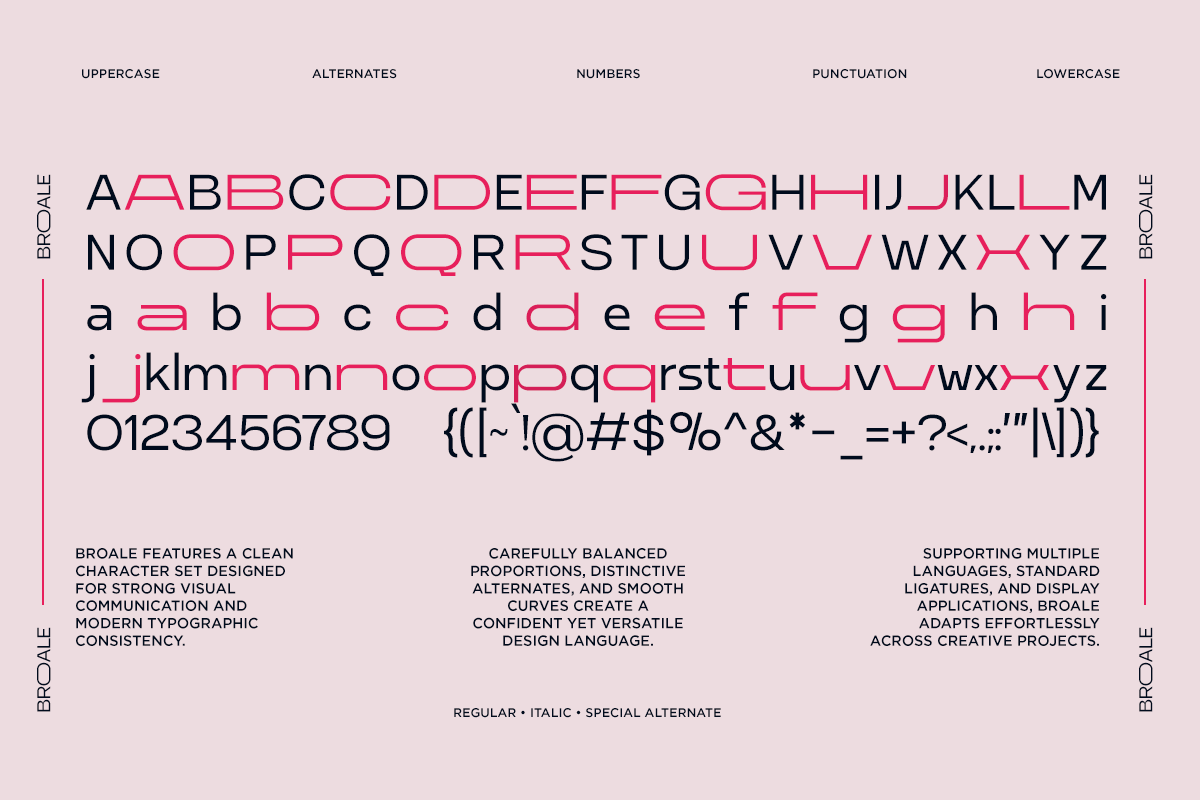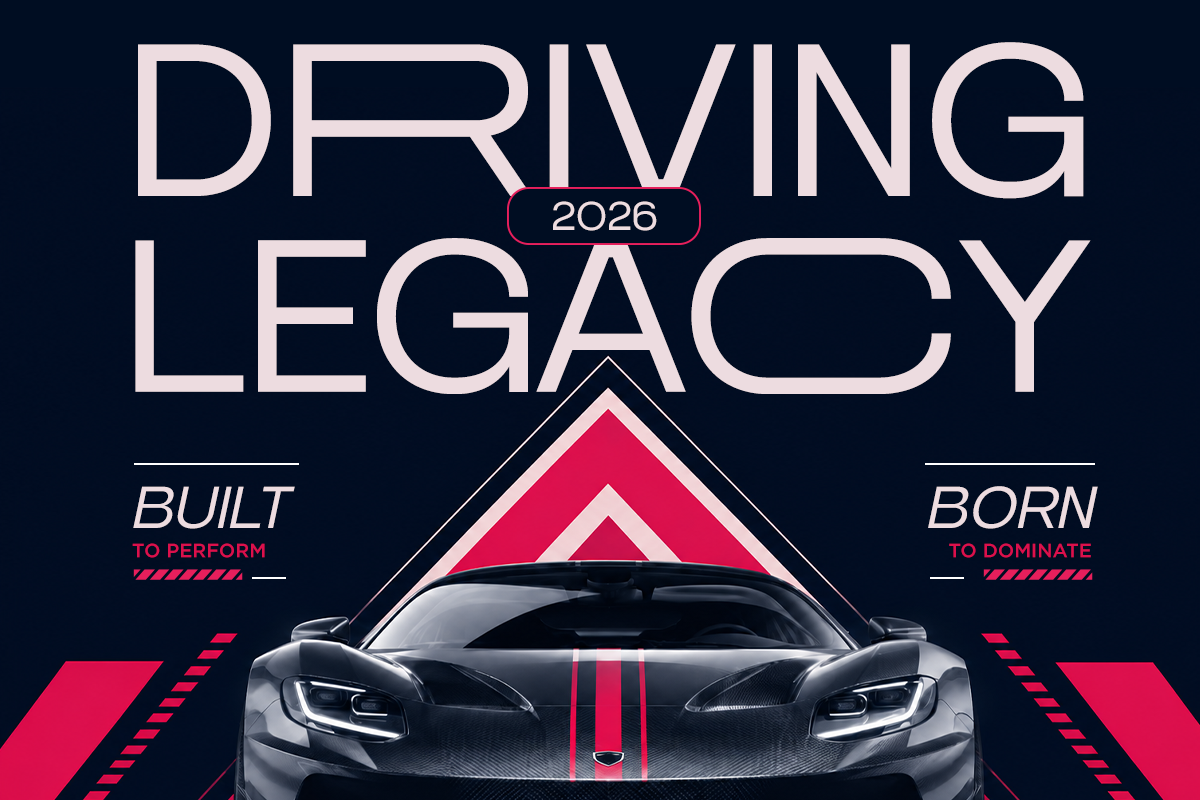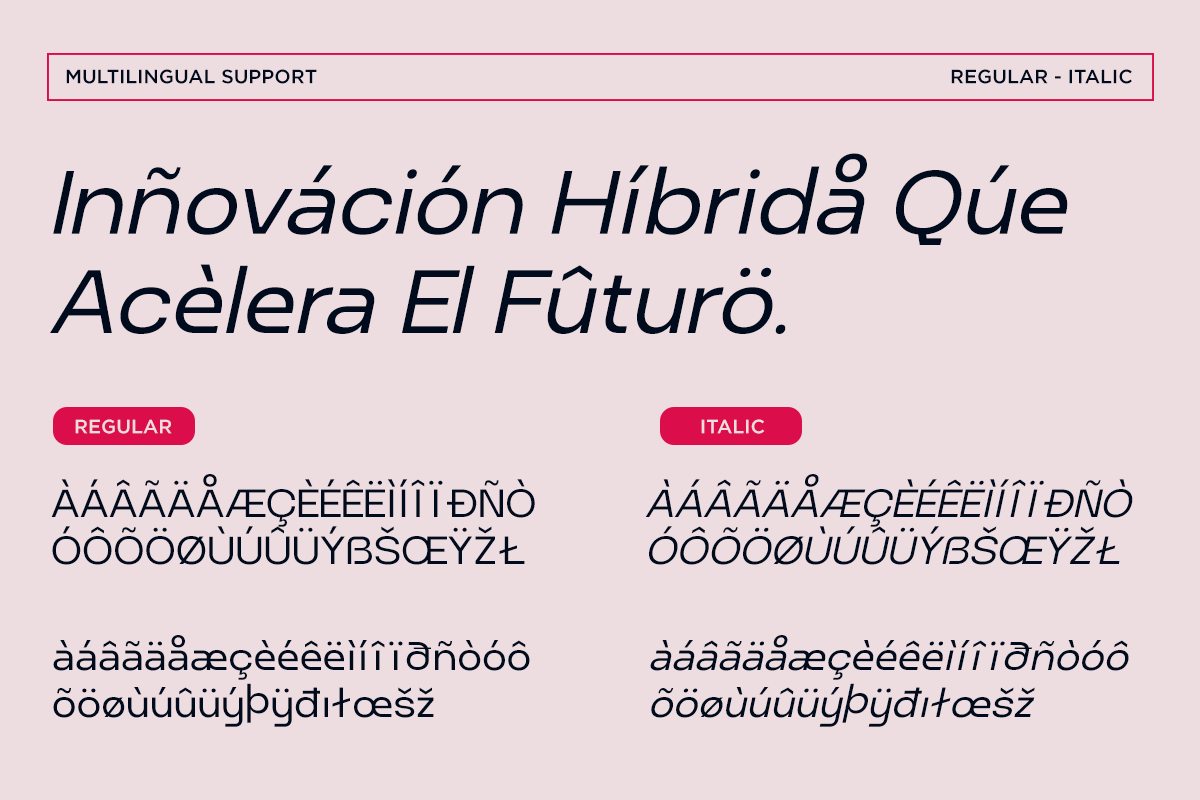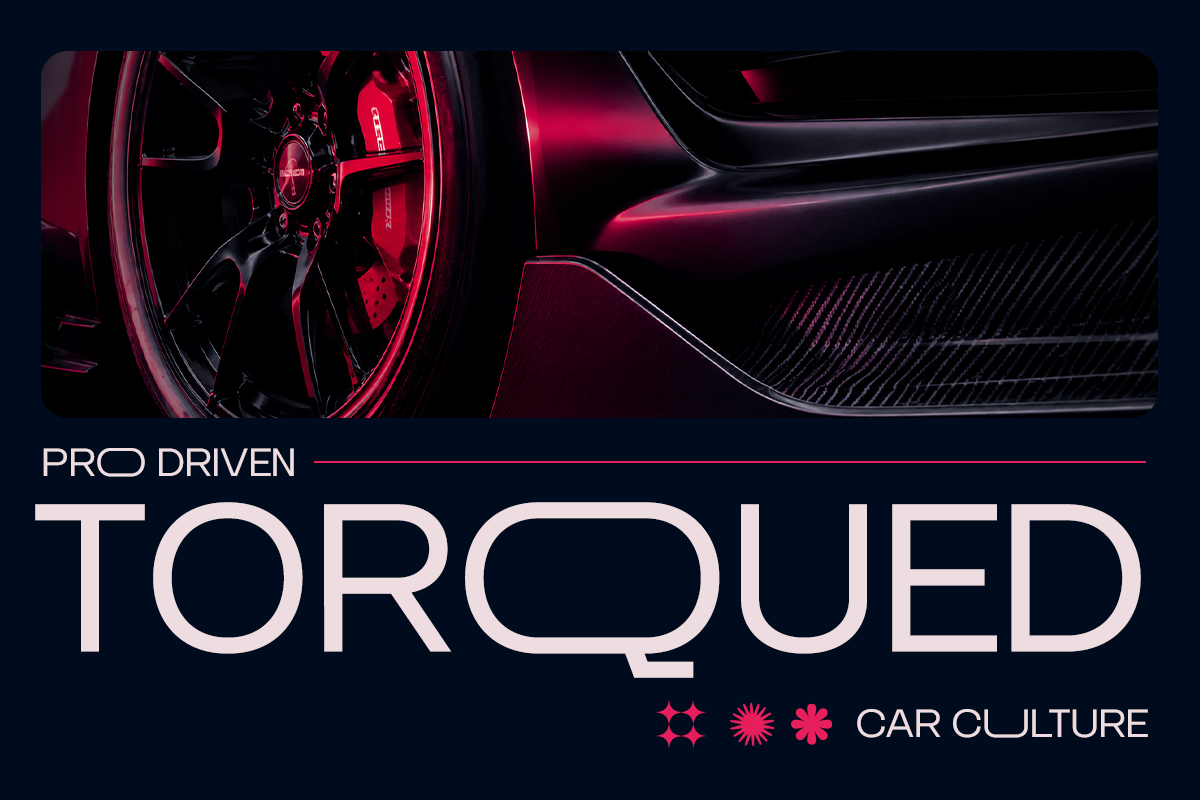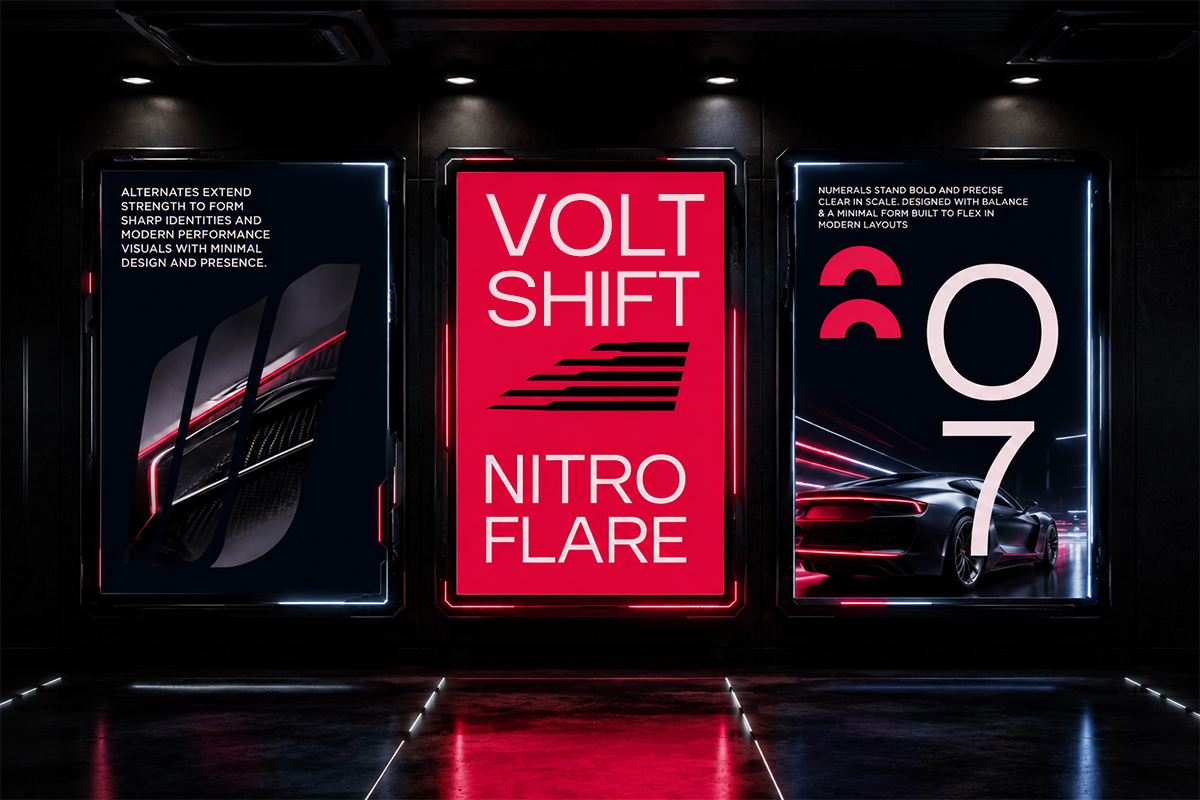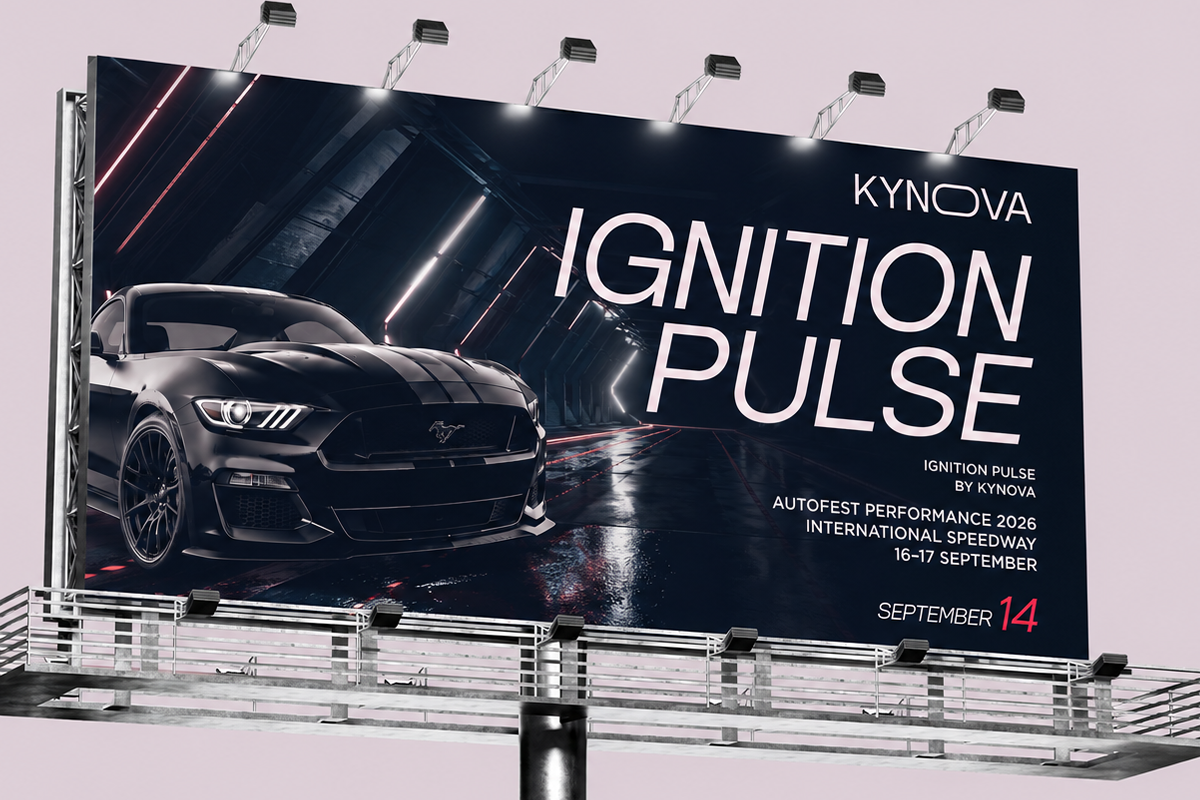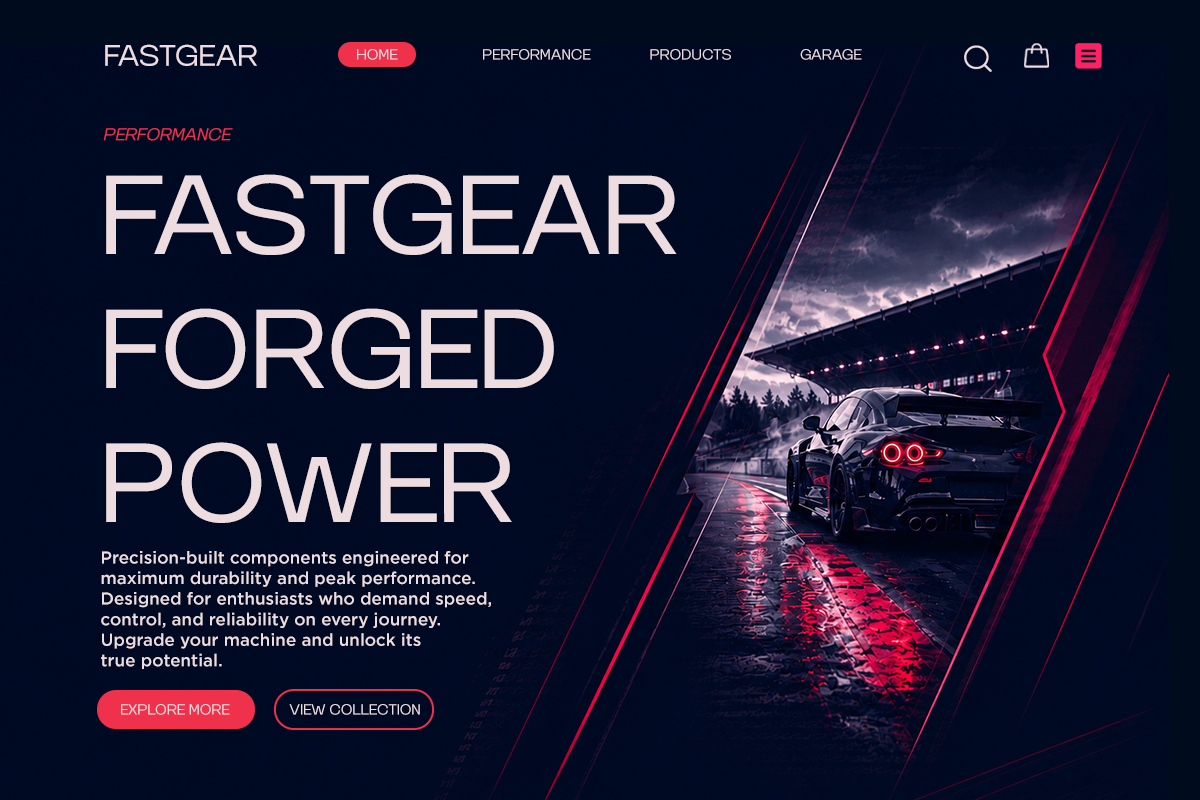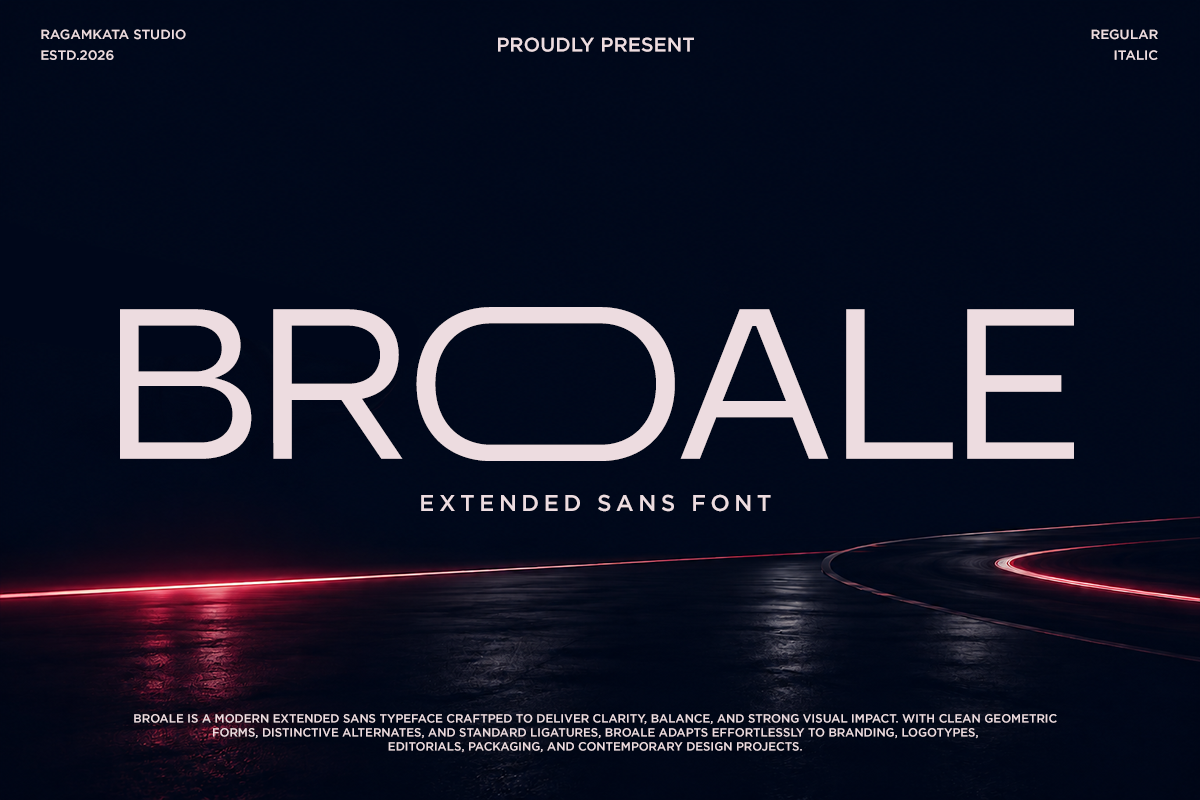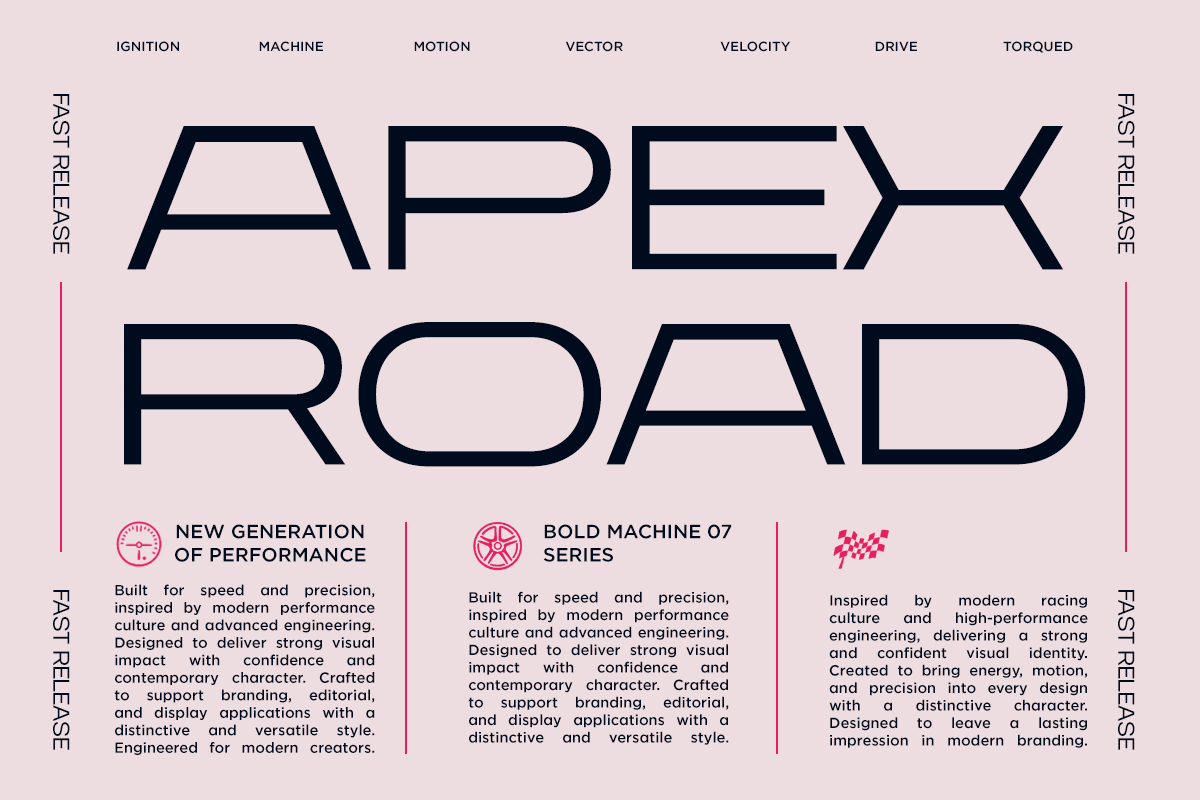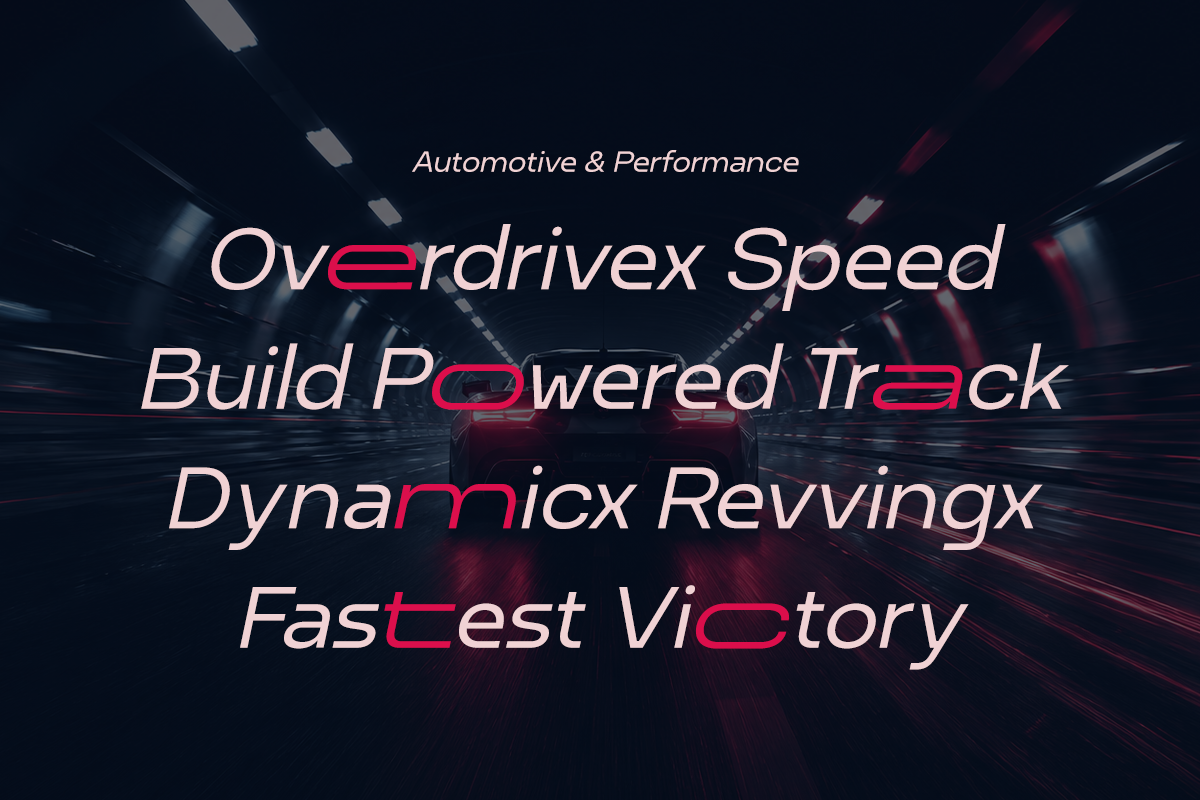
Broale - Ultrawide Sans Serif Font
Broale is a modern ultra wide sans serif font typeface designed to deliver bold presence with exceptional clarity. Featuring wide proportions, clean geometric construction, and carefully balanced spacing, it creates a confident visual identity across both digital and print media. Complete with Regular and Italic styles, stylistic alternates, and standard ligatures, Broale offers the flexibility needed for expressive typography without sacrificing readability.
Inspired by contemporary automotive design, futuristic architecture, and performance-driven branding, Broale combines precision with versatility. Its streamlined letterforms make it an excellent choice for logos, motorsport graphics, editorial headlines, advertising campaigns, technology branding, UI design, websites, packaging, and premium product presentations. Every character is crafted to maintain a strong visual rhythm while adding a refined, modern aesthetic.
Whether you're creating automotive branding, racing posters, luxury packaging, gaming interfaces, sports identities, corporate presentations, innovative digital experiences, or high-impact marketing materials, Broale delivers a powerful typographic voice. Its extended proportions, distinctive alternates, and multilingual support make it a valuable asset for designers seeking a clean, sophisticated, and impactful display font.
Regular and Italic Style
Extended Alterates Character
Number, Symbol, and Punctuation
Multi Language Support